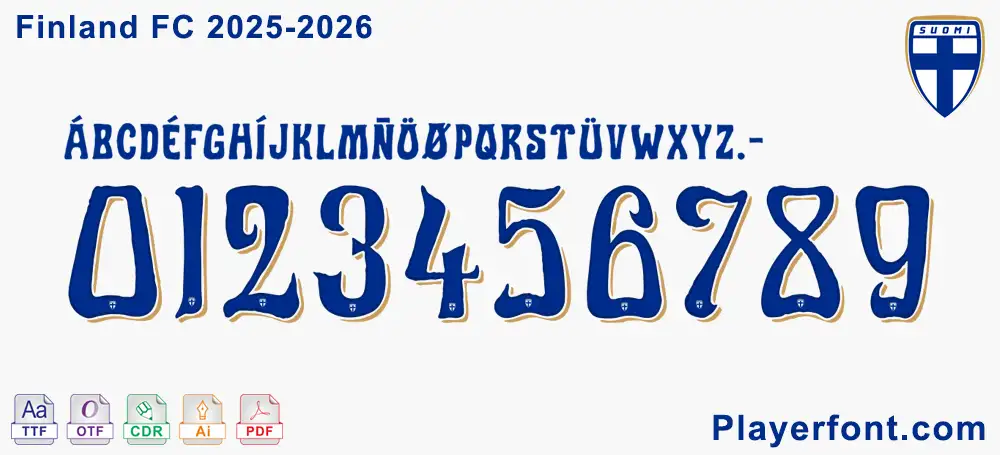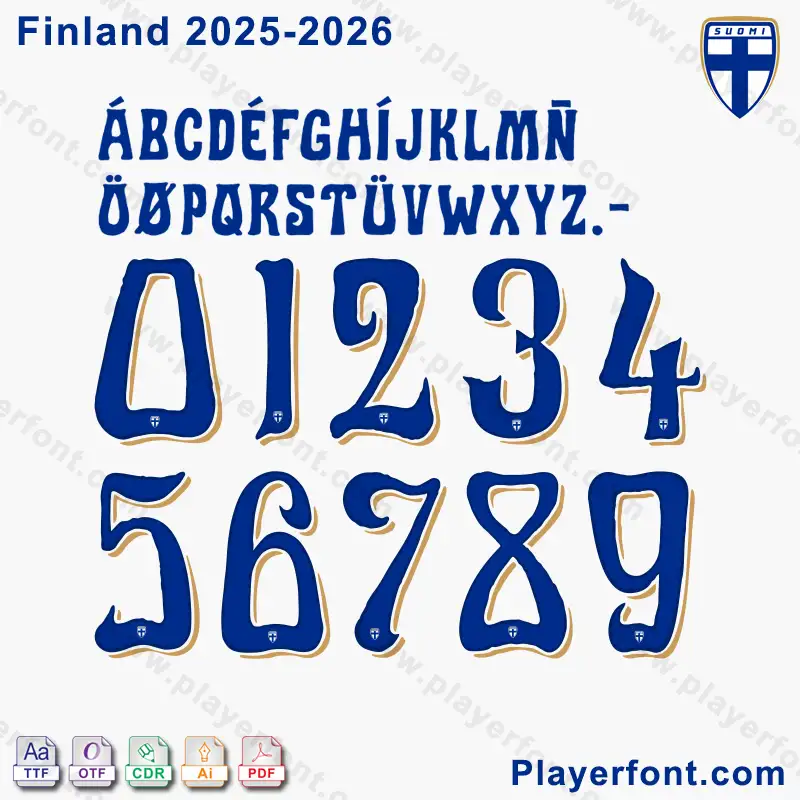
Finland 2025-2026 Font is a contemporary, versatile typeface designed for creative professionals.
✔ Matching Numbers & Letters – Replicates the official Benfica typography.